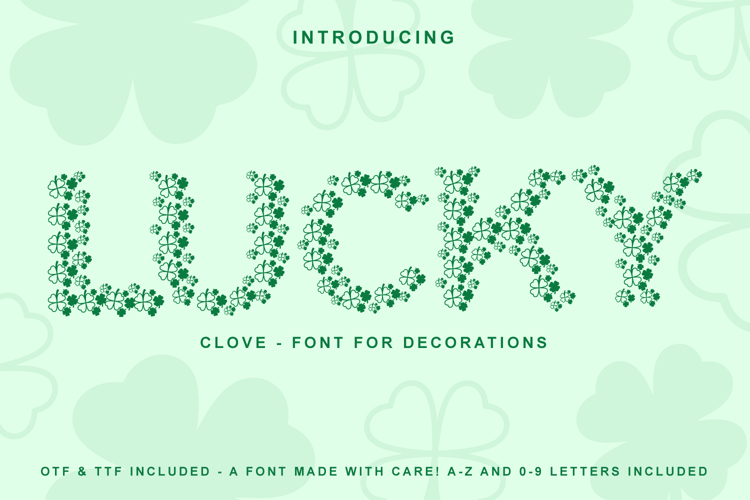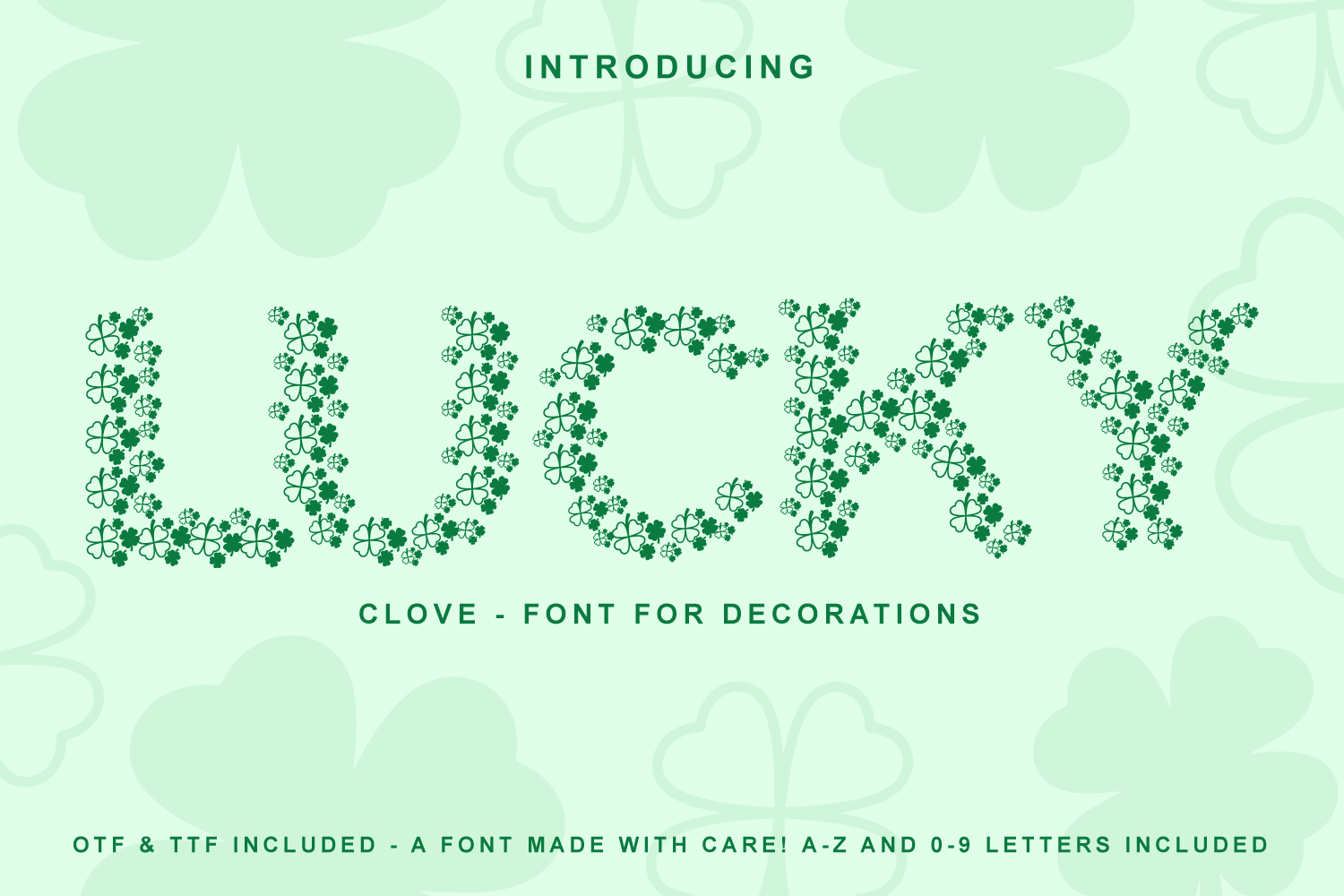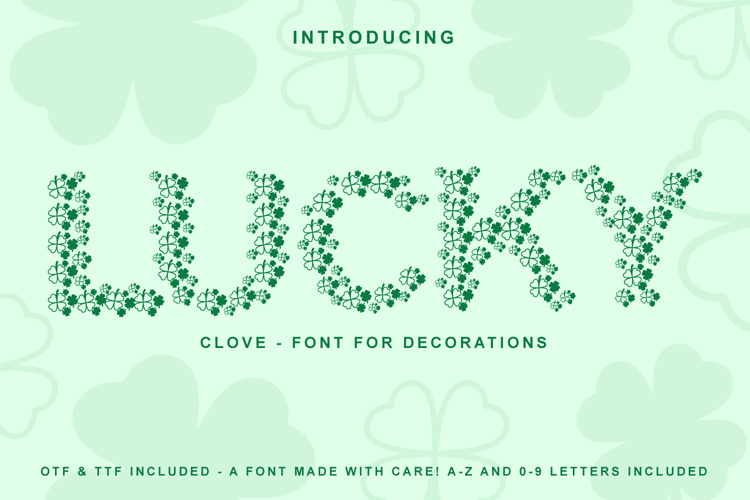
A cute Lucky Clove - St. Patrick's Day Decorative Font - You can create lots of things using this font including logos, use in Cricut machines etc for your parties like birthdays, fun projects, and making monograms. This font is ready to help you in every situation.